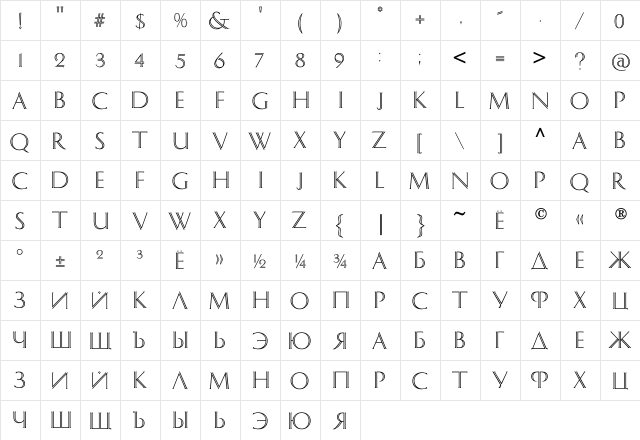
DelphianC Regular Font Preview
DelphianC Regular
Design Context for DelphianC Typeface
DelphianC offers clean, dependable letterforms without strong stylistic allegiance, making it a practical choice for designers who need flexibility.
Pro Tip: Pair DelphianC with a font of contrasting weight or personality to build a more expressive typographic hierarchy.